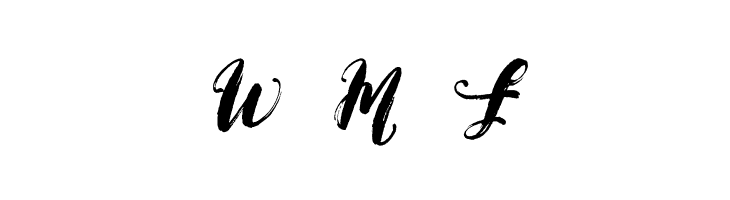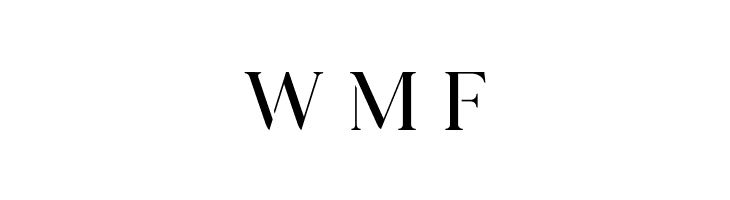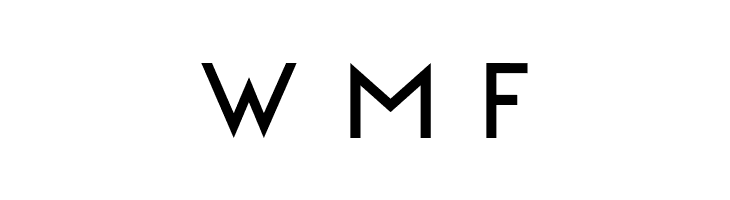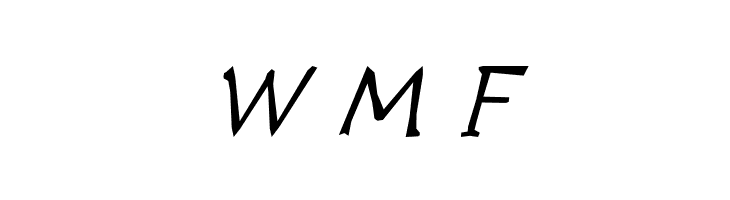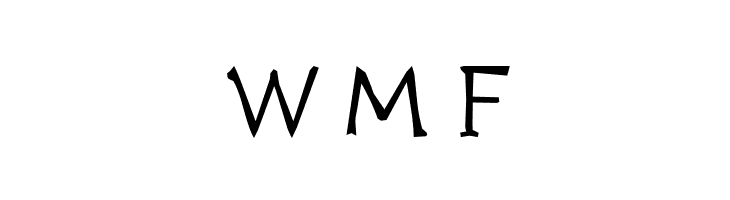
A sophisticated serif font with high contrast and elegant details.
An elegant, flowing script font with a sophisticated, handwritten style.
An ornate Blackletter font with intricate, gothic-inspired letterforms.
A bold, classic serif font with moderate contrast and excellent legibility.
A dynamic and elegant italic font with smooth, slightly slanted letterforms.
A whimsical, hand-drawn style font with artistic flair.
A bold, playful font with a handcrafted appearance and thick strokes.
A modern sans-serif font for the Meetei Mayek script, offering clarity and readability.